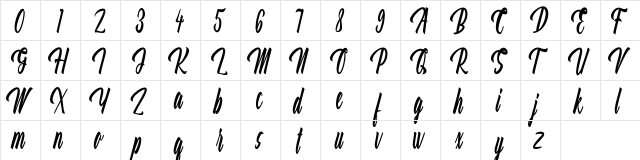
Aquilland Regular
| Foundry | Analogous |
| Designer | Analogous |
Design Context for Aquilland Typeface
Aquilland is a composed and adaptable typeface that performs quietly and consistently across a wide range of design contexts.